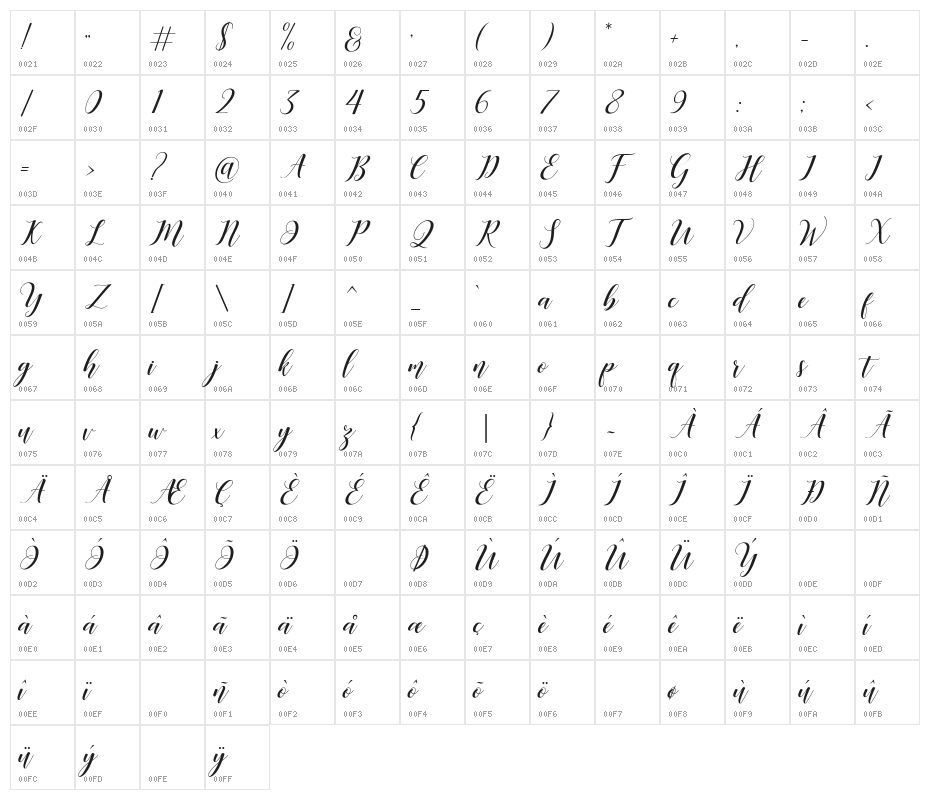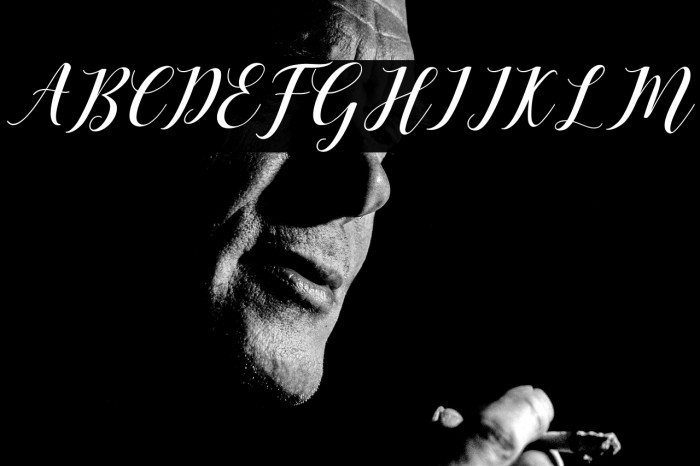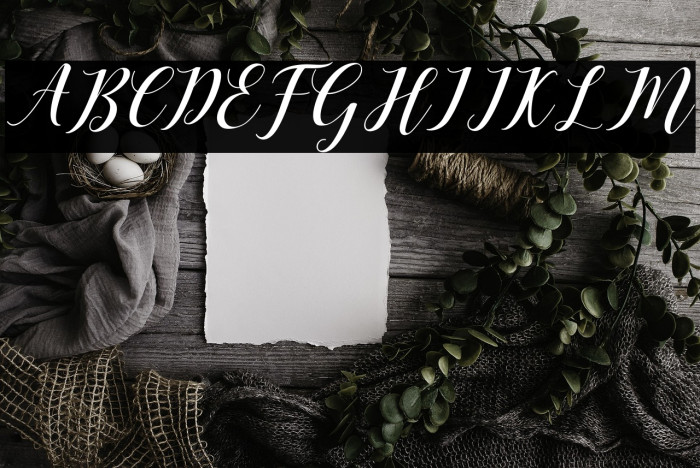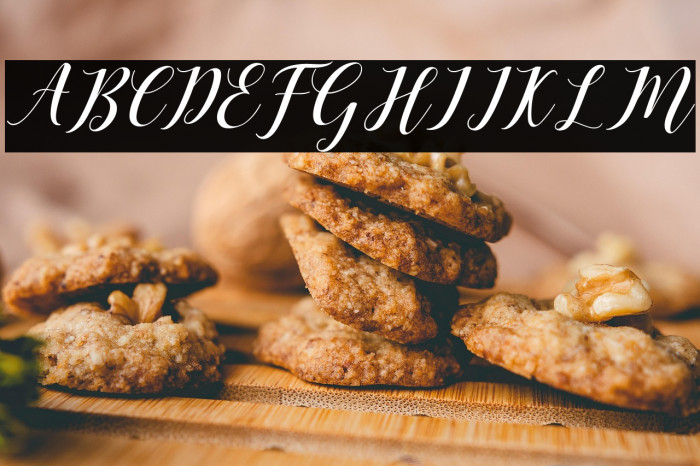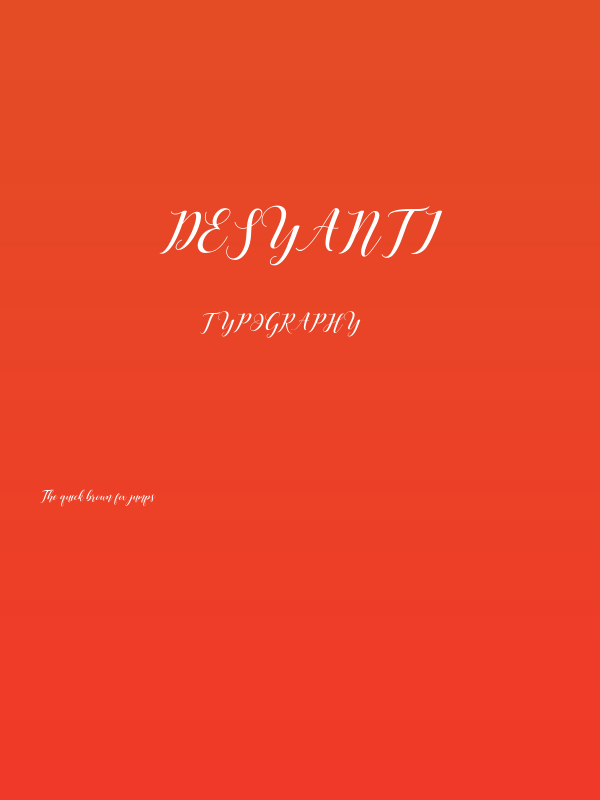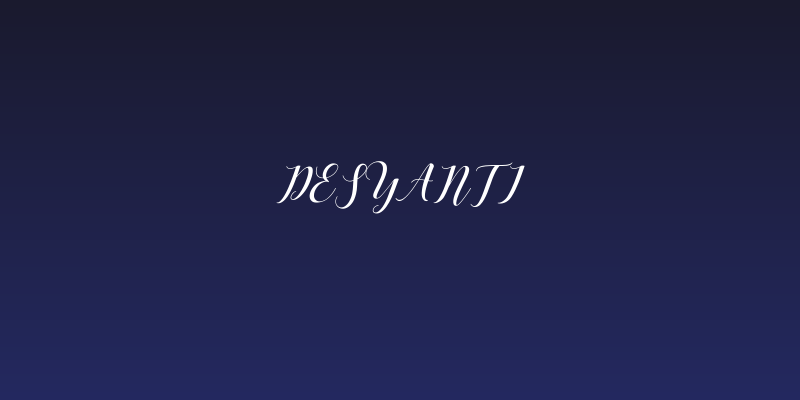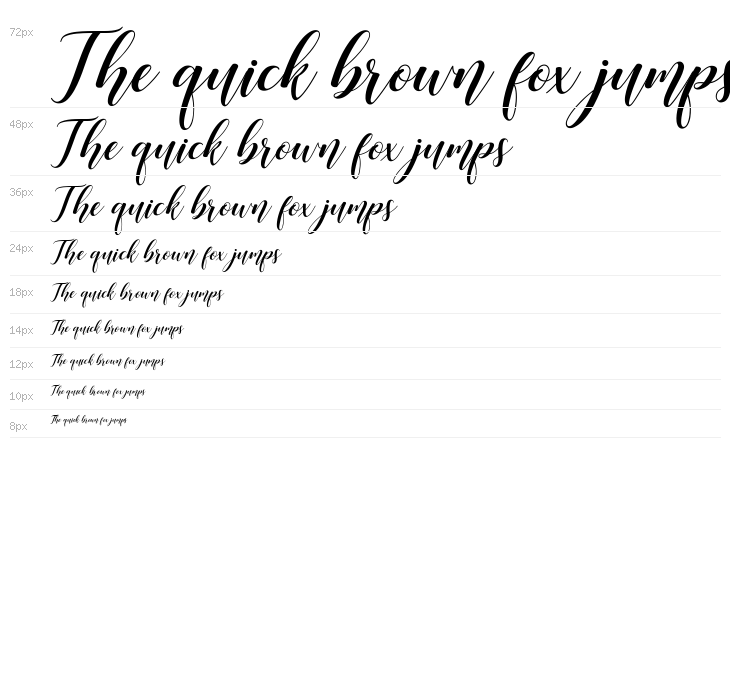
Desyanti Font
Desyanti Description
This elegant script font features flowing, cursive letterforms with a sophisticated and graceful appearance. The uppercase letters are tall and slender, with sweeping ascenders and descenders that add a sense of movement and fluidity. The lowercase letters maintain a consistent style, with smooth curves and delicate loops that enhance the font's refined aesthetic. The numerals are designed to complement the letterforms, featuring similar curves and a slightly elongated structure. Special characters are crafted with the same attention to detail, ensuring a cohesive look across all glyphs. This font exudes a sense of luxury and is ideal for projects that require a touch of elegance and class.
| Proposed Projects | Wedding invitations, luxury branding, elegant packaging, greeting cards, and high-end product labels. |